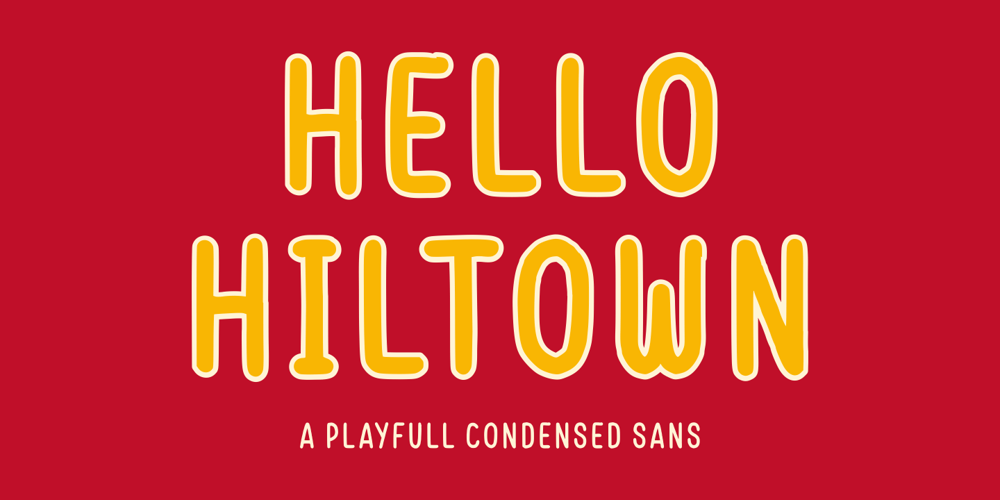
Hello Hiltown
Hello Hiltown font
Hello Hiltown Font Family was designed by Good Java and published by Good Java Studio. Hello Hiltown contains 1 styles and family package options. Introducing Hello Hiltown – Playfull CondensedHello Hiltown is the perfect font for all your fun and minimalism designs. The main font file is equipped with ordinary characters. Everything is made with the funny brush. So you can be sure they will work well together! It is suitable for you to use in making t-shirt design, quote, label, packaging, logo type, or long writing. Because we have compiled kerning and matrices that are tailored to your needs.Caps Only Fonts.